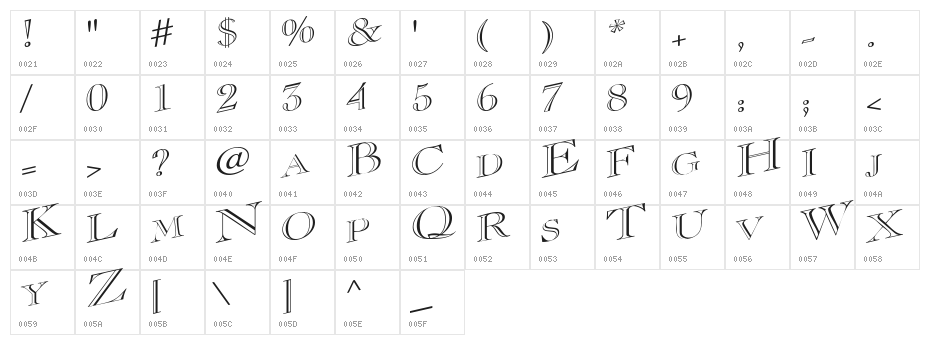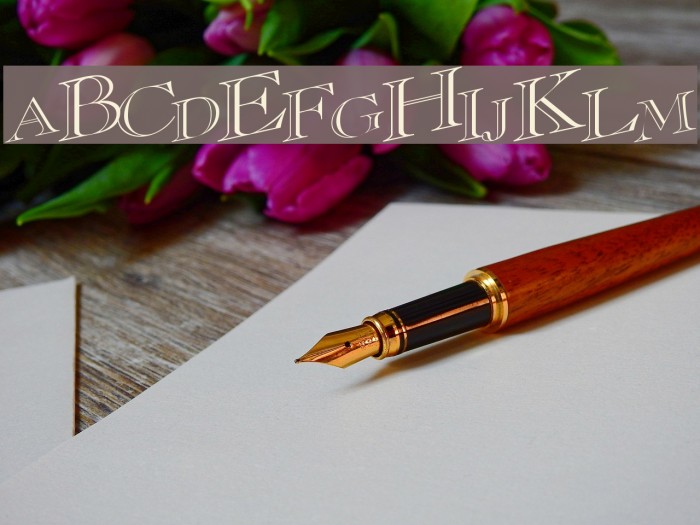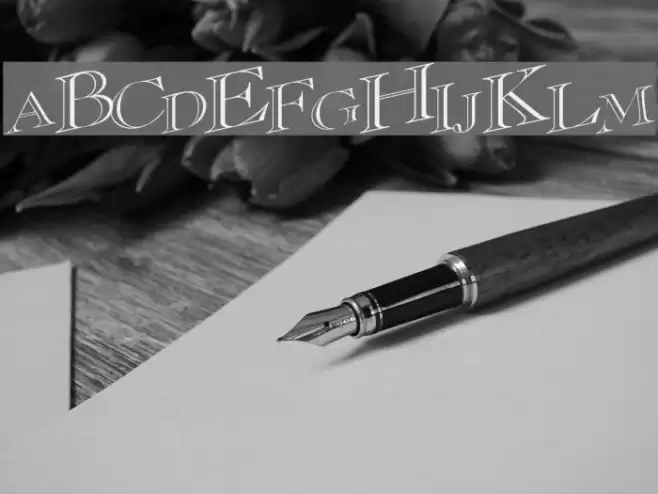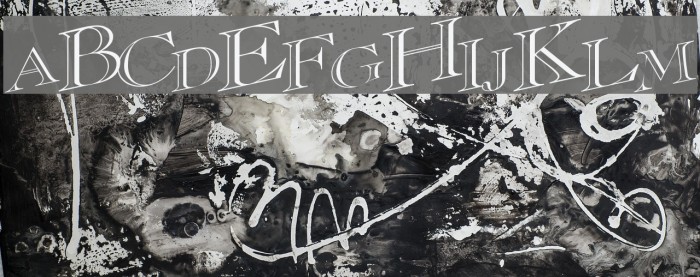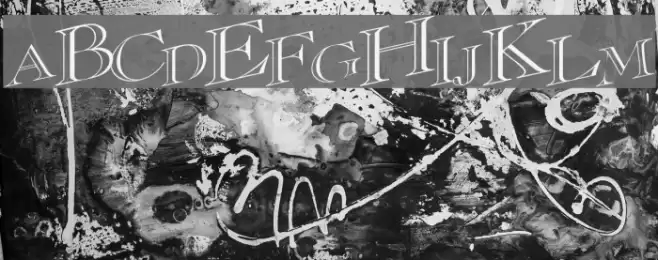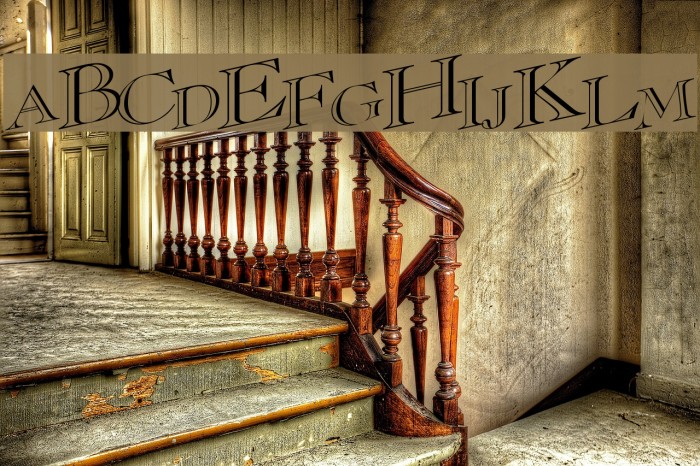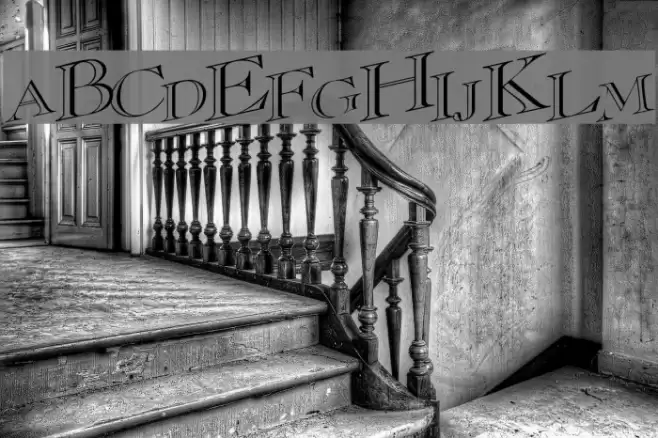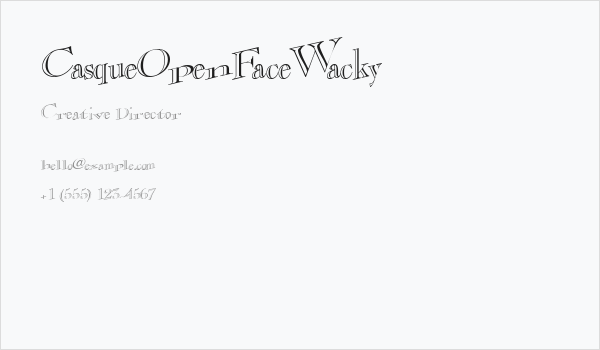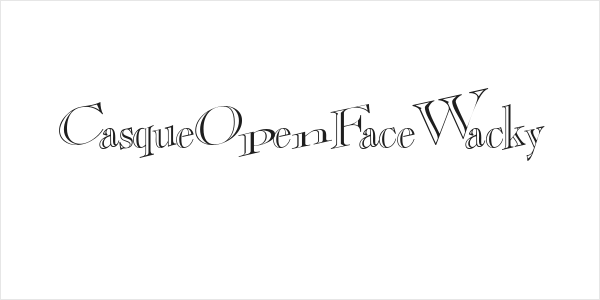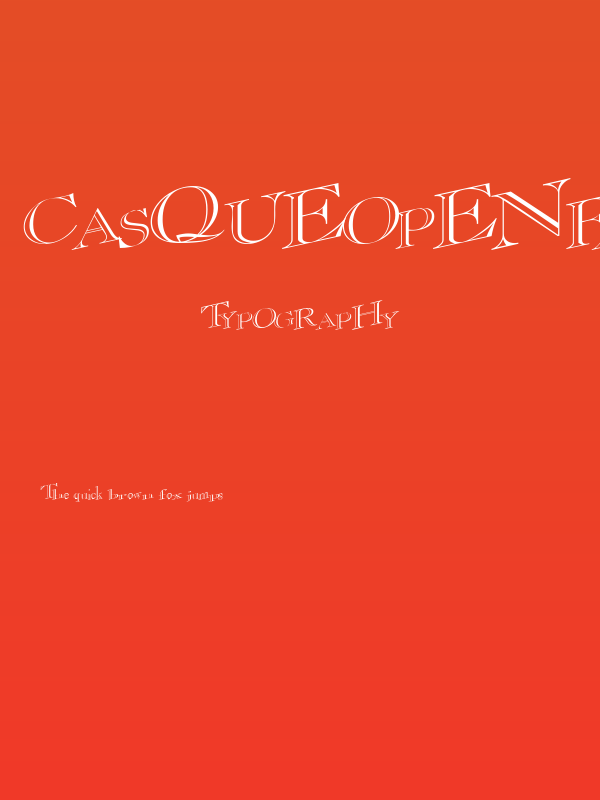
CasqueOpenFaceWacky Font
CasqueOpenFaceWacky Description
This font features a playful and whimsical style, characterized by its exaggerated serifs and dynamic, flowing lines. The uppercase letters exhibit a sense of movement, with varying stroke widths that create a lively and energetic appearance. The lowercase letters maintain a similar style, with unique curves and angles that add to the font's quirky charm. The numerals are equally distinctive, with bold, sweeping strokes that ensure they stand out. Special characters are creatively designed, adding to the overall playful aesthetic. This font's unique design makes it suitable for projects that require a touch of fun and creativity.